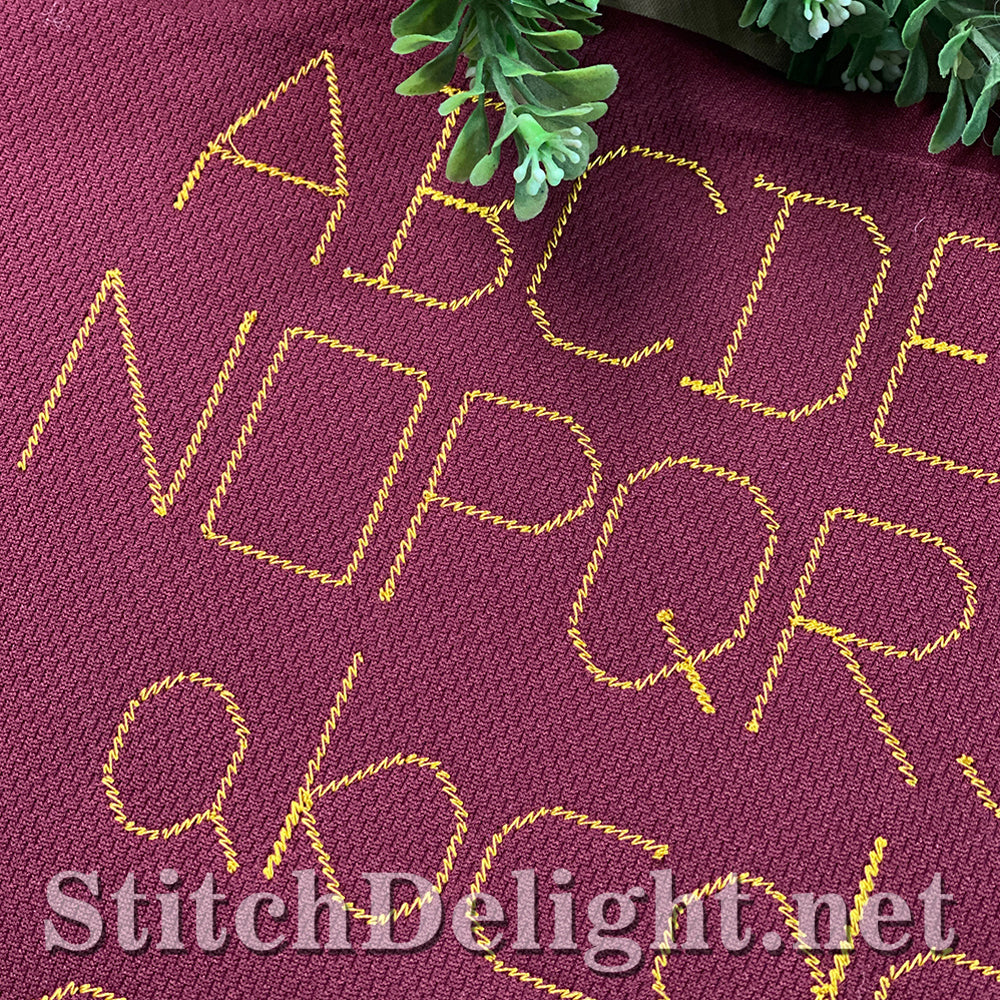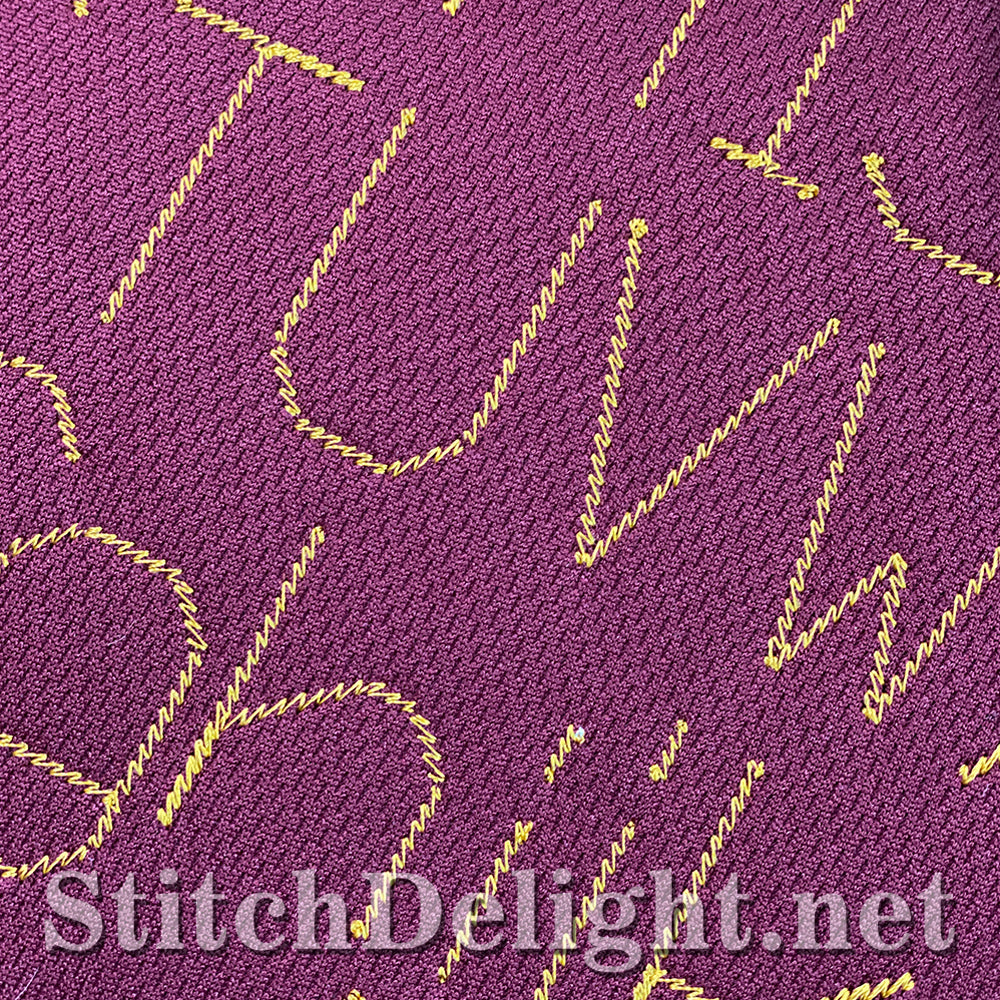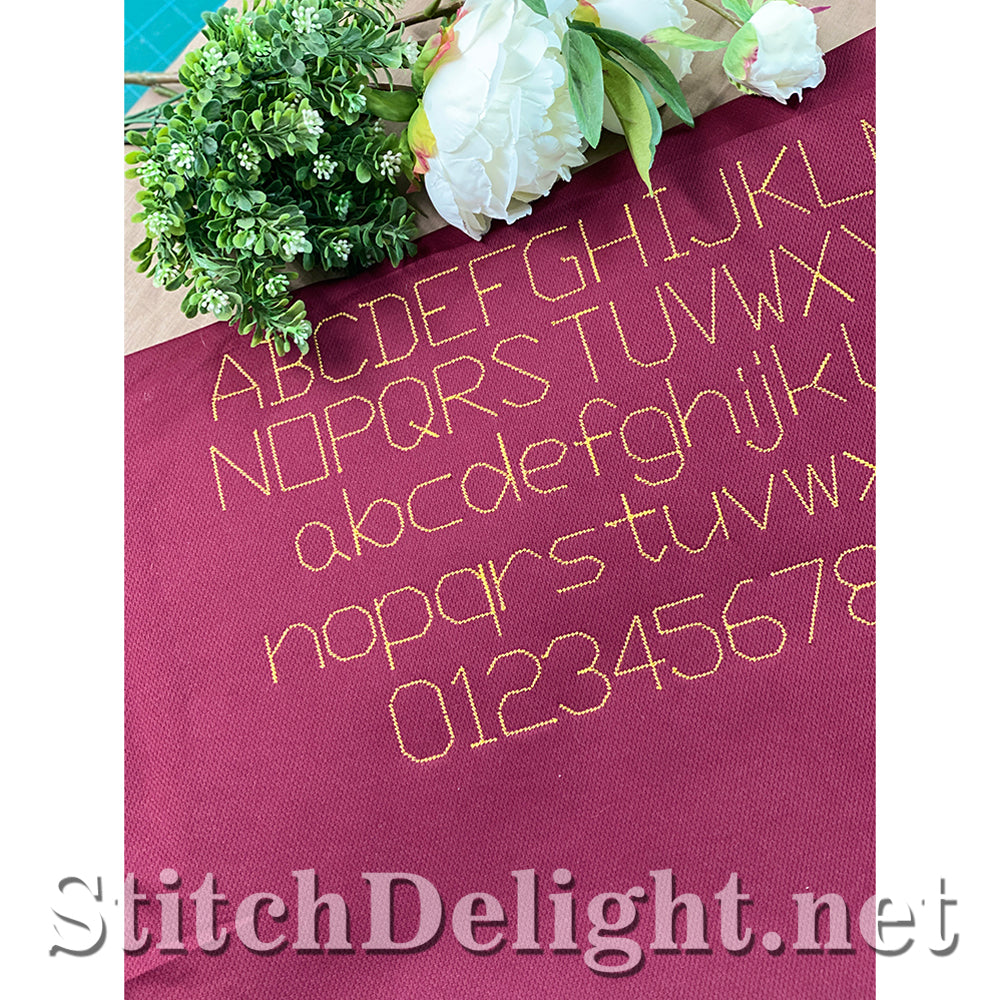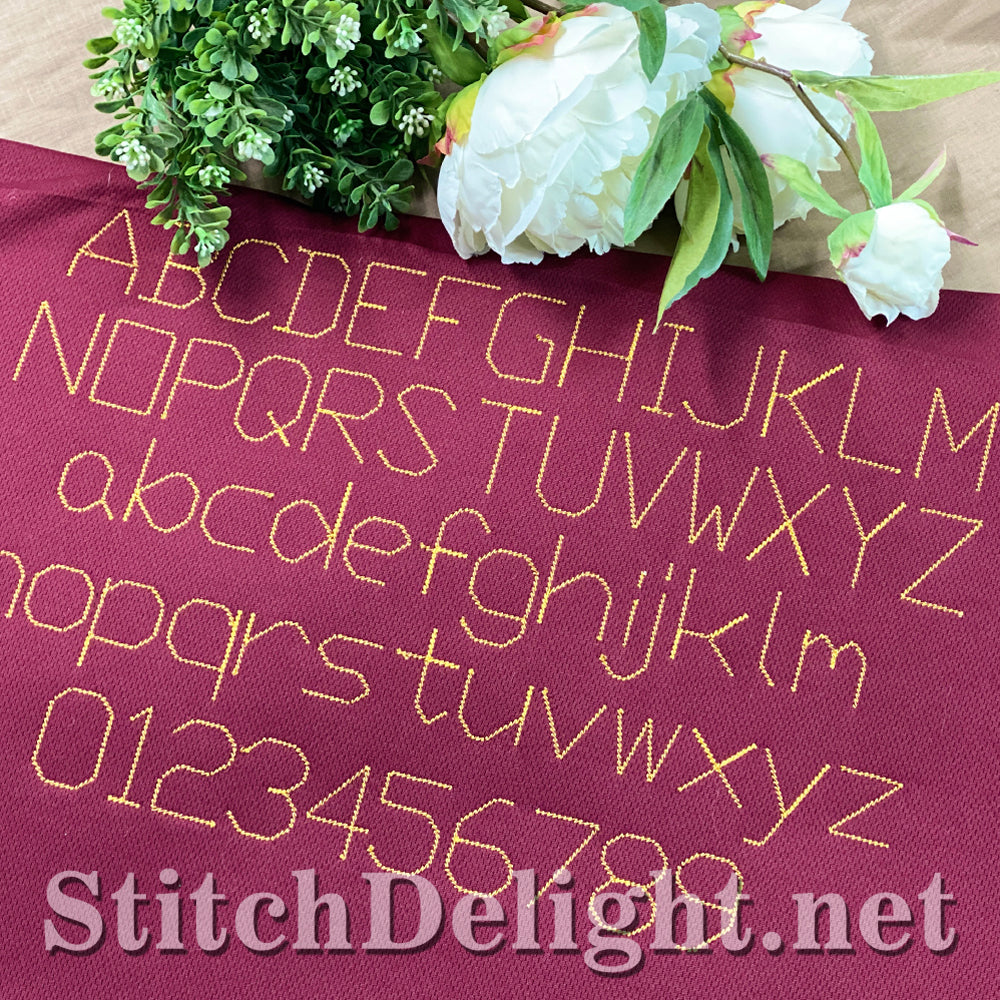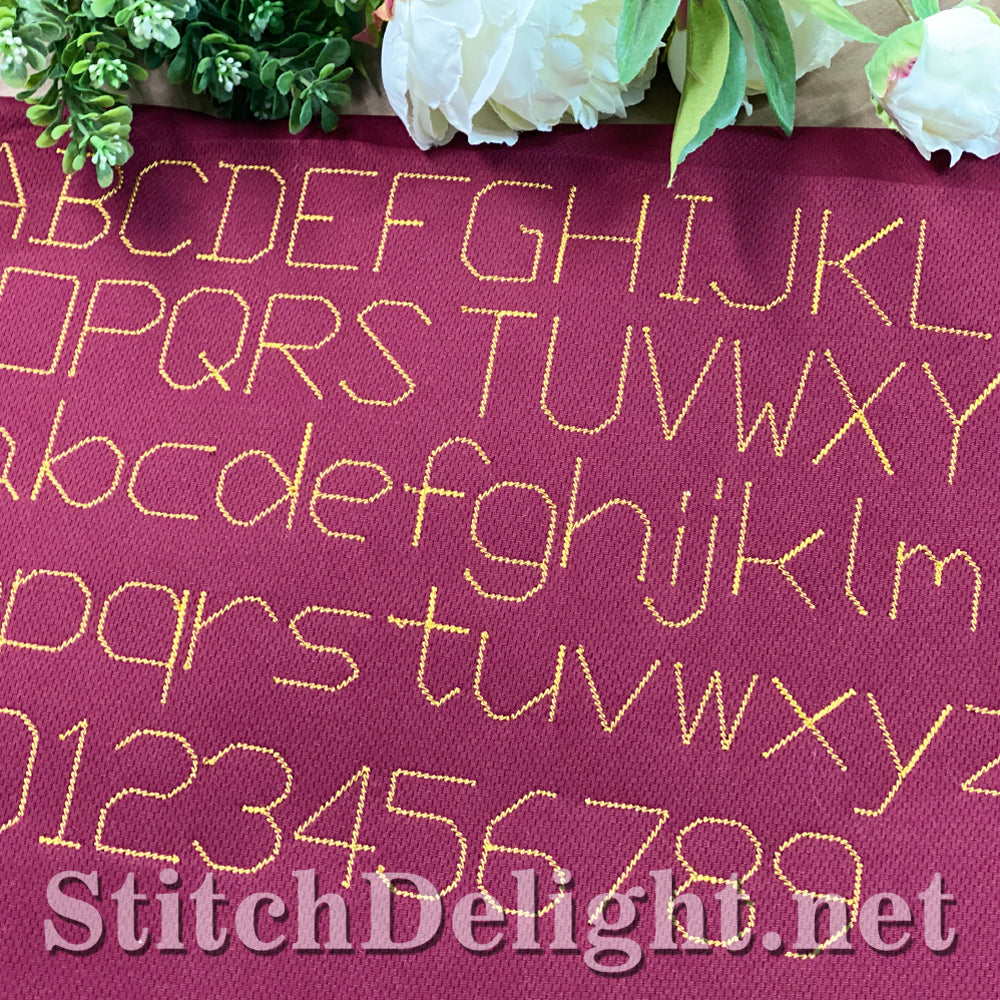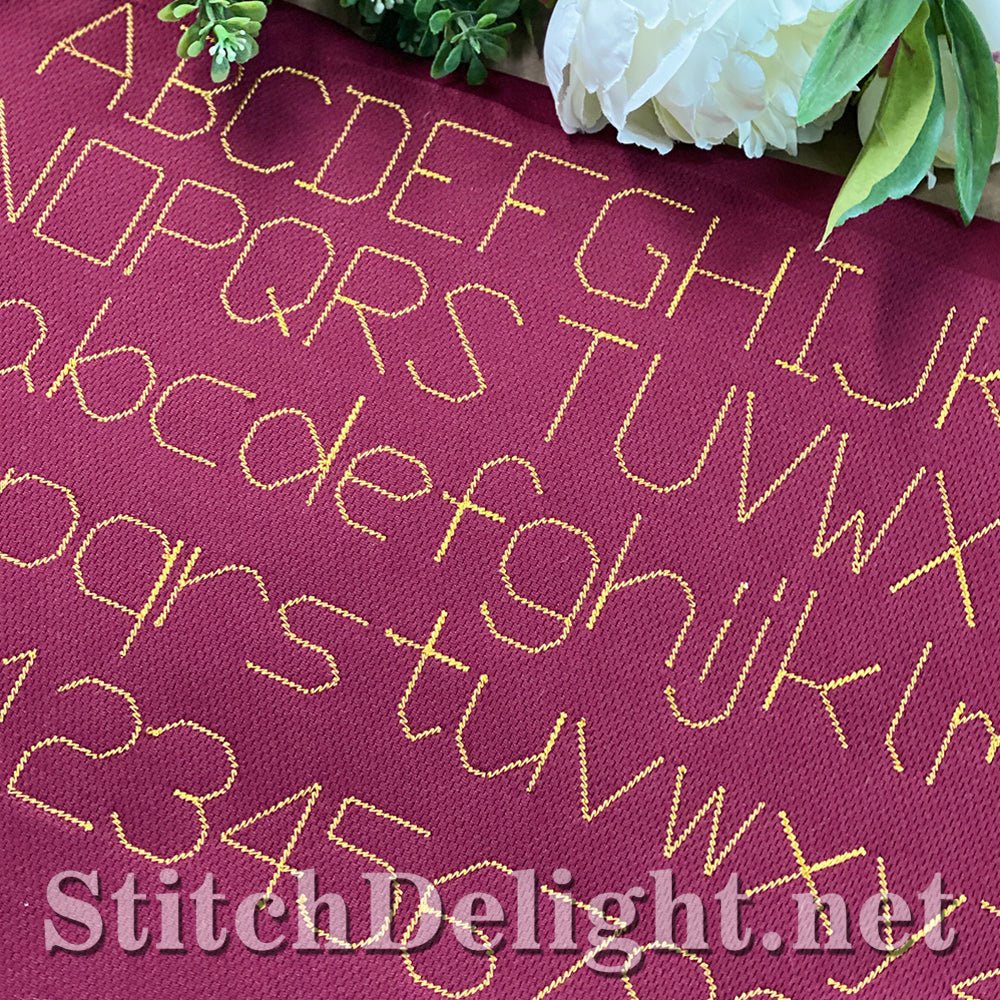
This line font is ideal for those smaller projects or where you want a very slender dainty font, still readable but not dense. Works especially well on Quilts. This font is 1.45inch in height on the capital letters